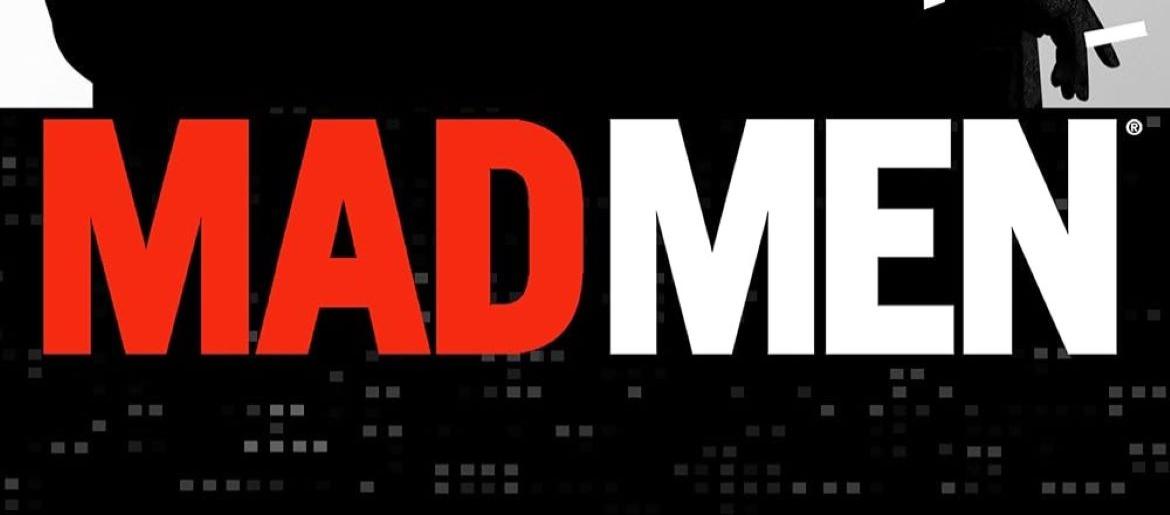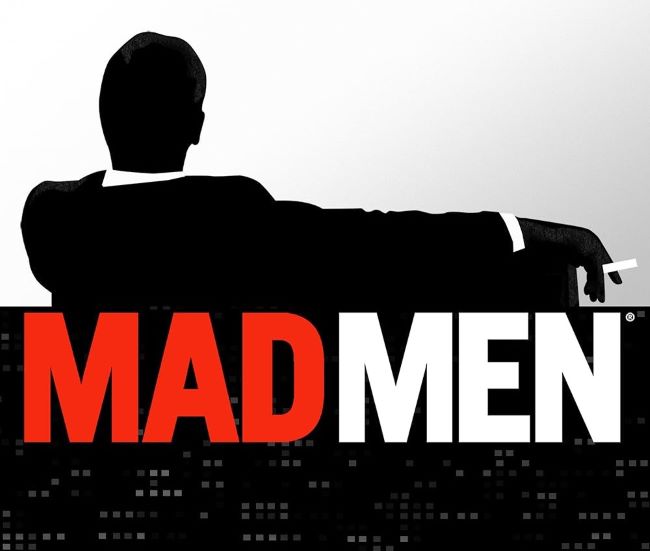
Mad Men font captures the sleek, mid-century elegance of the acclaimed TV series Mad Men. With its clean, sharp lettering and sophisticated style, the Mad Men font perfectly reflects the show’s themes of ambition, power, and 1960s advertising glamour. I think this font is ideal for projects that need a classy, retro vibe—like vintage posters, cocktail party invitations, or stylish branding. Its minimalist yet striking design adds a sense of professionalism and cool confidence, making it a favorite for fans of timeless aesthetics.
Mad Men Font
Using the Mad Men font instantly brings a touch of classic Madison Avenue charm to any creative work. The title of Mad Men uses a font that closely resembles Helvetica Neue Heavy. This is a commercial typeface, which means it’s not free to use—you can purchase and download the font from authorized font retailers.